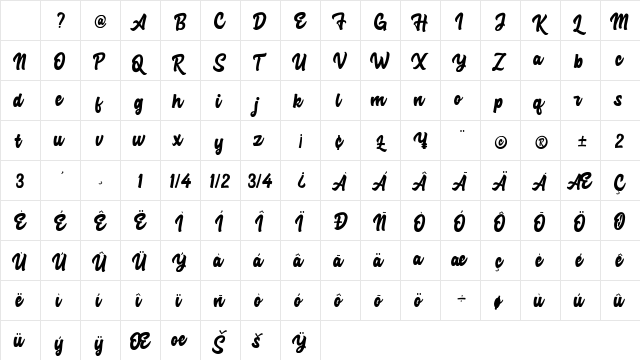
Complete Advocate Script Regular glyph index. Displaying only characters natively supported by Advocate Script Regular font.
Advocate Script flows with the natural rhythm of handwritten lettering, making it ideal for designs that call for warmth and personal expression.